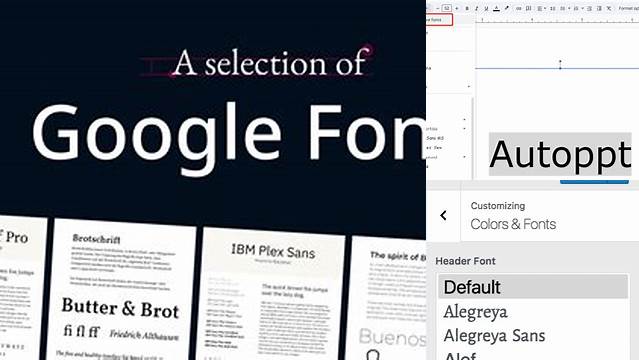
Use Google Fonts In Word: A Simple Guide
Hey everyone! Ever felt like your Word documents are looking a little…blah? One of the easiest ways to spice things up is by using Google Fonts. They're free, versatile, and can give your documents a professional or creative edge. This guide will walk you through everything you need to know about how to use google fonts in word, making your documents stand out from the crowd. So, let's dive in!
1. Understanding Google Fonts
Before we jump into the nitty-gritty of adding these fonts to Word, let's understand what Google Fonts actually are. Google Fonts is a library of over a thousand free licensed font families, making it a treasure trove for anyone looking to enhance their typography. Using Google Fonts ensures that you have access to a wide variety of styles, from elegant serifs to modern sans-serifs, and even quirky display fonts. These fonts are web-optimized, meaning they load quickly and look great on any device. When you learn how to use google fonts in word, you're not just changing the look of your text; you're adding personality and readability to your content. The best part? They're completely free to use, whether it’s for personal or commercial projects. This vast collection allows you to choose the perfect font that aligns with your document's tone and purpose, whether it's a formal report, a creative resume, or a fun invitation. So, go ahead and explore the possibilities and see how Google Fonts can transform your ordinary documents into visually appealing masterpieces. Trust me, guys, it’s a game-changer!
2. Why Use Google Fonts in Word?
So, why should you even bother using Google Fonts in Word? Well, the default fonts in Word are, let’s be honest, a bit boring. Google Fonts offers a massive selection of unique and stylish fonts that can drastically improve the visual appeal of your documents. Imagine turning a plain report into something that actually looks inviting to read, or crafting a resume that immediately grabs the recruiter's attention. That's the power of good typography! Plus, using a distinctive font can help reinforce your brand identity. If you’re creating documents for a business or personal brand, consistent use of specific fonts can make your content instantly recognizable. Learning how to use google fonts in word is not just about aesthetics; it's about making your content more engaging, readable, and memorable. And the best part? It’s free! You don't have to spend money on expensive font licenses to get a professional look. With Google Fonts, you have a huge library at your fingertips, ready to transform your documents from drab to fab. Seriously, once you start using them, you'll wonder how you ever lived without them!
3. Finding and Selecting Google Fonts
Okay, let's get practical. How do you actually find and select the perfect Google Font for your project? First, head over to the Google Fonts website (fonts.google.com). This is where the magic happens. You'll see a vast collection of fonts, and you can start browsing right away. But don't get overwhelmed! Use the filters on the left-hand side to narrow down your options. You can filter by categories like Serif, Sans Serif, Display, Handwriting, and Monospace. You can also filter by properties like thickness, slant, and width. Once you find a font you like, click on it to see more details. You'll get a preview of the font in different sizes and styles, and you can even type in your own text to see how it looks. Play around with different fonts until you find one that really speaks to you. When choosing a font, consider the purpose of your document. A formal report might call for a clean, readable sans-serif font like 'Open Sans' or 'Lato', while a creative invitation could benefit from a more decorative display font like 'Lobster' or 'Pacifico'. The key is to find a font that not only looks good but also enhances the readability and overall tone of your document. So, take your time, explore the options, and choose wisely! Remember, the perfect font can make all the difference.
6. Using Google Fonts in Microsoft Word
Okay, the moment of truth! Let's see how to use google fonts in word. Open Microsoft Word and create a new document or open an existing one. Select the text you want to change, or start typing new text. In the Home tab, find the font selection dropdown menu. Click on it, and you should see your newly installed Google Fonts in the list. If you don't see them, try restarting Word. Sometimes it takes a refresh for the new fonts to appear. Once you find your Google Font, click on it to apply it to the selected text. Voila! Your text is now rocking that stylish Google Font. You can experiment with different fonts and sizes to get the perfect look for your document. Remember, readability is key, so choose a font that is both visually appealing and easy to read. Don't go too crazy with decorative fonts for large blocks of text; save those for headings or accents. And there you have it! Using Google Fonts in Word is as simple as that. With a little creativity, you can transform your documents into visually stunning masterpieces. So, go ahead and unleash your inner designer and make your Word documents shine!
7. Troubleshooting Google Fonts in Word
Sometimes, things don't go as smoothly as we'd like. If you're having trouble using Google Fonts in Word, don't panic! Here are a few common issues and how to fix them. First, make sure the fonts are actually installed on your computer. Double-check that you followed the installation steps correctly. If the fonts are installed but not showing up in Word, try restarting Word. This often resolves the issue. If that doesn't work, try restarting your computer. Sometimes a full reboot is necessary for the fonts to be recognized by all applications. Another common issue is corrupted font files. If the fonts are causing Word to crash or behave erratically, try downloading the fonts again from the Google Fonts website. It's possible that the original download was corrupted. Also, ensure that your version of Word is compatible with the fonts. Older versions of Word might not support certain font formats. If you're still having trouble, try clearing Word's font cache. This can sometimes resolve conflicts between different fonts. To do this, close Word, then navigate to the folder where Word stores its font cache (this location varies depending on your operating system and version of Word). Delete the font cache files, then restart Word. If all else fails, consult the Microsoft Word help documentation or search online for solutions specific to your issue. There are plenty of forums and online communities where people share their experiences and troubleshooting tips. With a little patience and persistence, you'll be able to get those Google Fonts working in Word in no time!
8. Font Pairing Tips for Word Documents
Choosing the right fonts is important, but pairing them effectively can take your documents to the next level. Font pairing is the art of combining two or more fonts that complement each other and create a harmonious visual effect. Here are a few tips for pairing Google Fonts in Word. First, consider using a serif font for headings and a sans-serif font for body text, or vice versa. This creates a visual contrast that makes your document more interesting and readable. For example, you could pair the serif font 'Playfair Display' with the sans-serif font 'Montserrat'. Another tip is to choose fonts that have different weights or styles within the same family. For example, you could use 'Open Sans' in bold for headings and 'Open Sans' in regular for body text. This creates a subtle but effective visual hierarchy. Also, pay attention to the overall tone of your document. If you're creating a formal report, stick to classic and professional font pairings. If you're creating a more creative document, you can experiment with bolder and more unusual pairings. However, avoid using too many different fonts in one document. Stick to a maximum of two or three fonts to avoid a cluttered and confusing look. Finally, trust your instincts and experiment until you find a pairing that you love. There are no hard and fast rules when it comes to font pairing, so don't be afraid to try new things and see what works best for you. With a little practice, you'll become a font pairing pro in no time!
9. Font Size and Readability in Word
Choosing the right font size is just as important as choosing the right font. If your text is too small, it will be difficult to read, and if it's too large, it will look unprofessional. Here are a few tips for choosing the right font size in Word. For body text, a font size of 11 or 12 points is generally recommended. This size is large enough to be easily readable without being too obtrusive. For headings, you can use larger font sizes to create a visual hierarchy. A heading size of 14 to 18 points is usually a good starting point, but you can adjust it based on the overall design of your document. Also, consider the font itself when choosing a font size. Some fonts appear larger or smaller than others at the same point size. Experiment with different font sizes until you find one that looks balanced and readable. Pay attention to line spacing as well. Too little line spacing can make your text look cramped, while too much can make it look disjointed. A line spacing of 1.15 to 1.5 is generally recommended for body text. Finally, always proofread your document to ensure that the font sizes and line spacing are consistent throughout. In terms of making your text more readable, focus on the following. Choose clear and legible fonts: Select fonts that are easy to read, avoiding overly decorative or stylized options, especially for body text. Sans-serif fonts like Arial, Helvetica, and Open Sans are generally good choices for online readability.Adjust font size: Ensure that the font size is appropriate for comfortable reading on screens. A font size between 12-16 points is often recommended for body text, but it can vary depending on the specific font and platform.Consider line spacing: Use adequate line spacing (also known as leading) to prevent lines of text from appearing cramped. A line spacing of 1.5 to 2.0 is generally recommended for improved readability.Use sufficient contrast: Make sure there is enough contrast between the text color and the background color. High contrast, such as black text on a white background or dark text on a light background, enhances readability.Avoid large blocks of text: Break up long paragraphs into shorter, more manageable chunks. Large blocks of text can be overwhelming and discourage readers from engaging with the content.By implementing these guidelines, you can ensure that your Google Fonts enhance the readability and overall visual appeal of your Word documents.
10. Embedding Google Fonts in Word Documents
To ensure that your Word document looks the same on any computer, you can embed the fonts directly into the document. Embedding fonts means that the font files are included within the Word file itself, so the recipient doesn't need to have the fonts installed on their system. Here's how to embed Google Fonts in a Word document. First, click on the 'File' tab, then select 'Options'. In the Word Options dialog box, click on the 'Save' tab. Scroll down to the 'Embed fonts in the file' section. Check the box labeled 'Embed fonts in the file'. You can also choose to embed only the characters used in the document to reduce the file size. This option is useful if you're only using a small subset of the font's characters. Click 'OK' to save the changes. Now, when you save your Word document, the fonts will be embedded within the file. Keep in mind that embedding fonts can increase the file size of your document, so use this feature judiciously. Also, some fonts may have licensing restrictions that prevent them from being embedded. If you're unsure, check the font's license agreement before embedding it. By embedding Google Fonts in your Word documents, you can ensure that your documents look exactly as you intended, no matter where they're opened. This is especially useful when sharing documents with people who may not have the same fonts installed on their computers. This helps with maintaining a consistent and professional look.